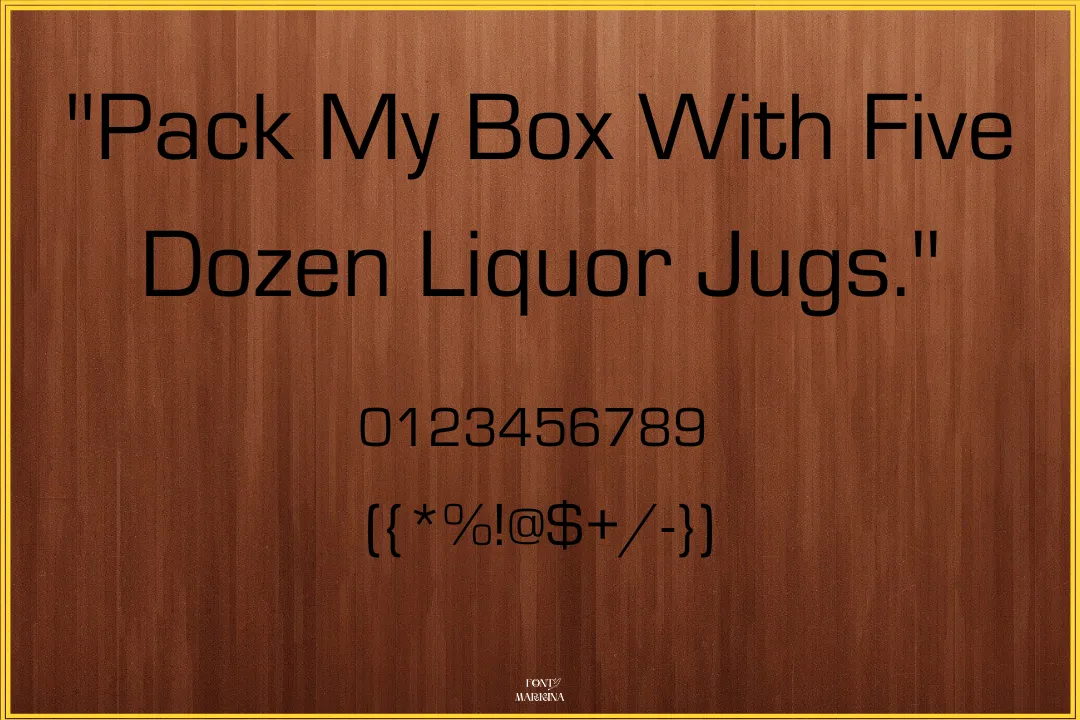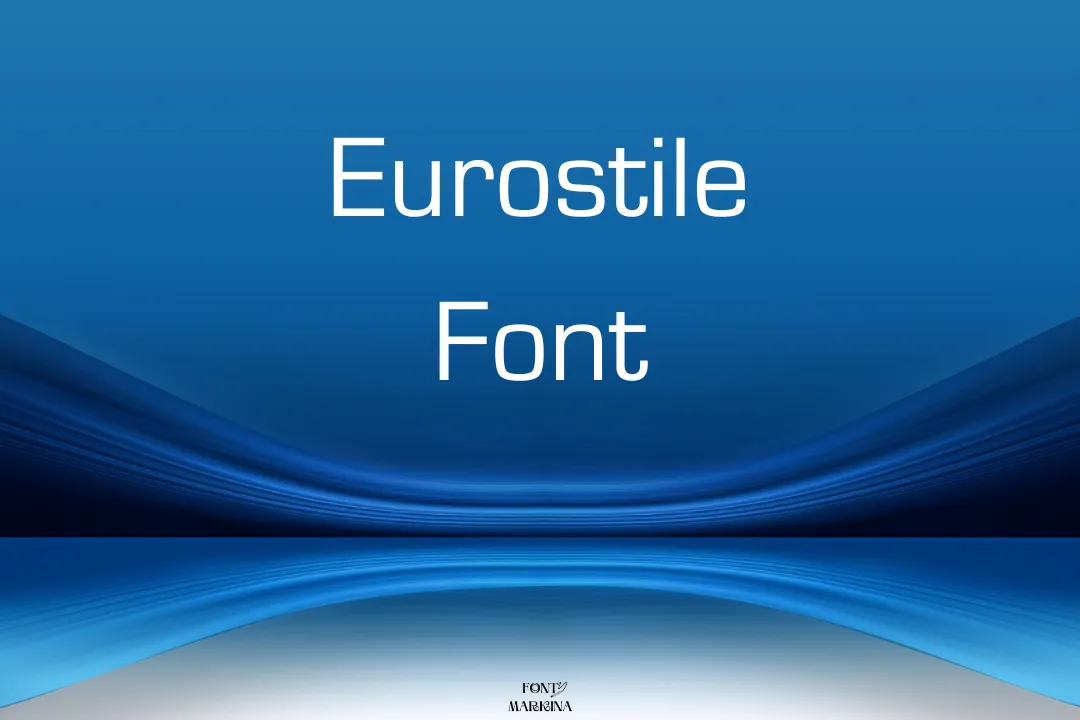
About Eurostile Font
Eurostile Font is a geometric sans-serif typeface that was designed by Italian type designer Aldo Novarese in 1962. It is characterized by its square shapes, rounded corners, and bold, strong lines. You can easily utilize its free version for various purposes, and tasks. This stunning texture has both file formats OTF and TTF.
Online generator tools are user-friendly and often feature drag-and-drop functionality, making it easy to create professional-looking designs in a short amount of time. This typography was initially designed for use in technological and scientific journals, such as manuals and diagrams.
The fonts are hosted on Google’s servers and can be easily accessed and integrated into websites using a simple link. It can be used with calibre font and make more attractive projects. This typography is obtainable in a bunch of weights and styles, including regular, bold, and condensed versions. It is obtainable for use on both desktop computers and web pages.
Uses of Eurostile Font
The Eurostile Font is often used for display purposes, such as headlines, signage, and posters. It has also been used in branding and advertising for companies like Alitalia, Philips, and Fiat.
Additionally, it has been used in various films and video games, including Blade Runner and the Gran Turismo series. Due to its geometric design, it can also be used in technical and scientific documents, as well as in diagrams and charts.
Eurostile is also widely used in the technology and aerospace industries and transportation and engineering projects. It has been used in the branding of many airlines and aerospace companies, such as NASA, as well as in navigation and guidance systems. The font is also commonly used in the design of control panels and other technical equipment.
The pairing quality of this texture is wonderful and can be paired with nimbus sans font. It has also been used in the creation of websites, particularly in the 1990s and early 2000s, and in mobile apps. f
Similars to Eurostile Font
Futura Font:
Designed by Paul Renner in 1927, Futura is considered to be one of the most important geometric sans-serif typefaces. It has a similar aesthetic to Eurostile, with its clean lines and precise letterforms.
Avenir Font:
Designed by Adrian Frutiger in 1988, Avenir is a modern take on the geometric sans-serif style. It has a similar feel to Eurostile, with its clean, precise letterforms and geometric shapes.
Gotham Font:
Designed by Tobias Frere-Jones in 2000, Gotham is a geometric sans-serif that was inspired by the architecture of New York City. It has a similar feel to Eurostile, with its clean, precise letterforms and geometric shapes.
Arial Font:
Designed by Robin Nicholas and Patricia Saunders in 1982, Arial is a widely used font, it is similar to Eurostile in that it is a geometric sans-serif typeface with clean, precise letterforms.
Helvetica Font:
Designed by Max Miedinger in 1957, Helvetica is another widely used font. It is similar to Eurostile in that it is a geometric sans-serif typeface with clean, precise letterforms.
These are just a few examples, there are many other geometric sans-serif fonts that share similar characteristics with Eurostile.
It has a more rounded, softer look compared to other geometric sans-serifs like Futura and Avant Garde. It also has a wider range of weights and variations.
What are some common uses of Eurostile?
This is commonly used in headlines and titles for print and digital media, as well as in branding and advertising. It is also used in technology and science-related publications and materials.